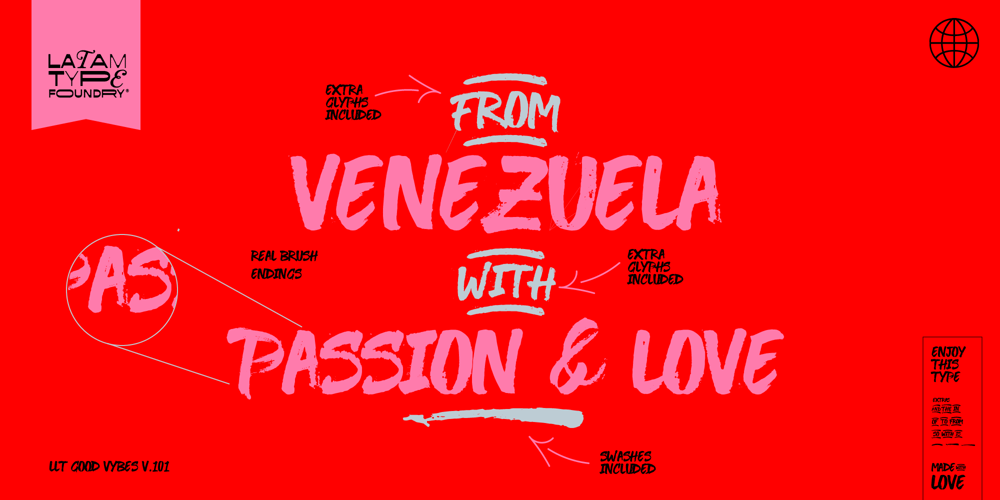
LLT Good Vibes
LLT Good Vibes font
LLT Good Vibes Font Family was designed by nasser Araujo and published by Latam Type Foundry. LLT Good Vibes contains 1 styles and family package options. A good typography created with love for you, can be used in logos, posters, postcards, graphic arts in general. Good vibes is created from a brush stroke from there its effect finished brush type. Good vibes for you. Thank you!Good Vibes includes several extras to speed up your creative process by opening the glyphs in any vectorization program, Adobe Illustrator, Freehand, Corel Draw and others.